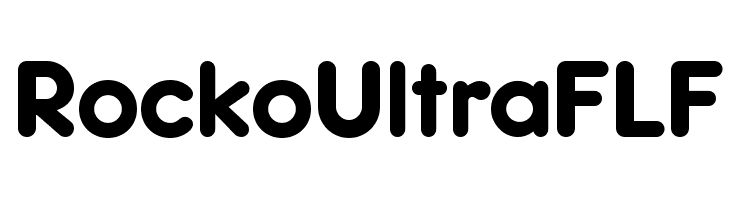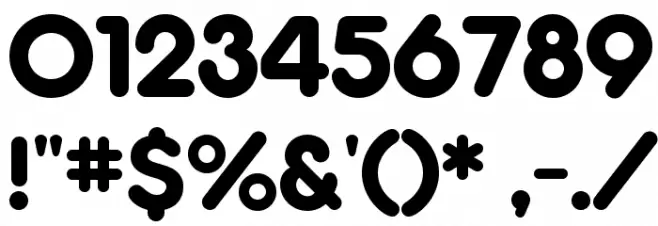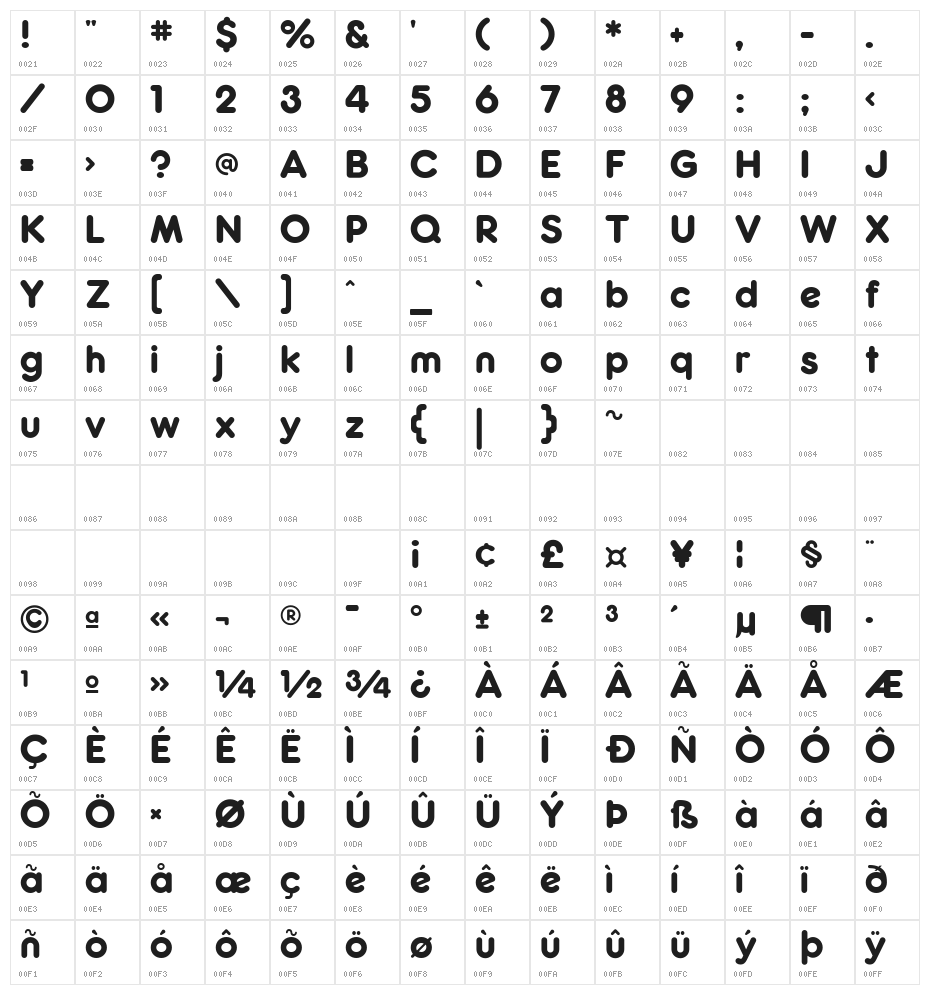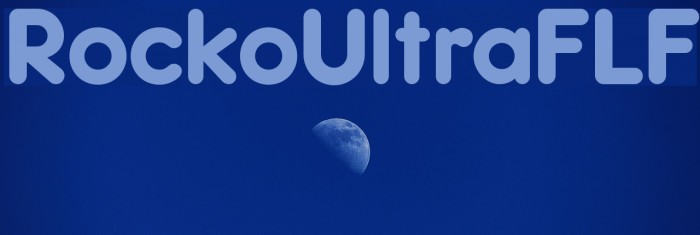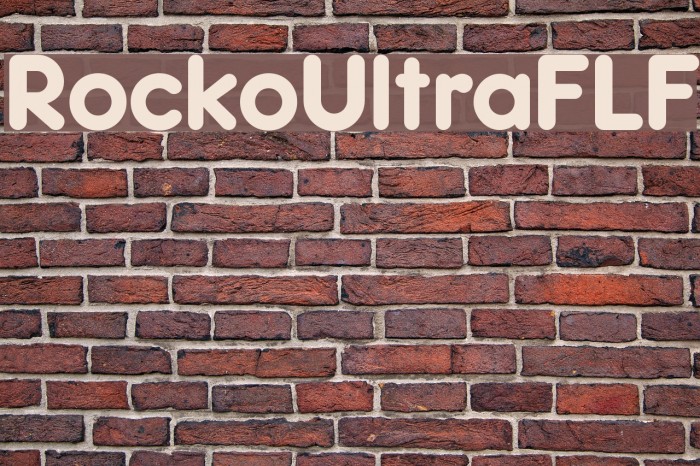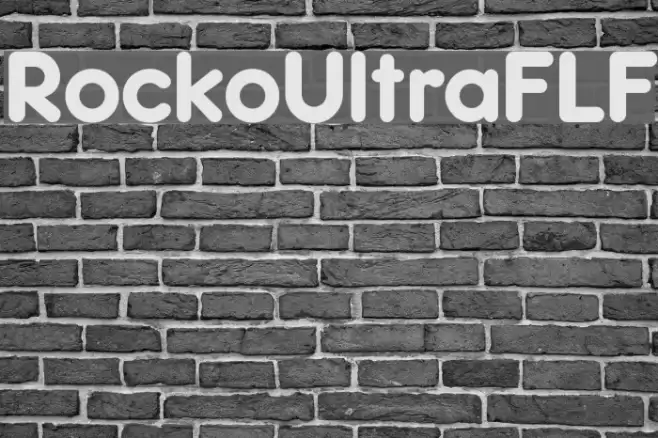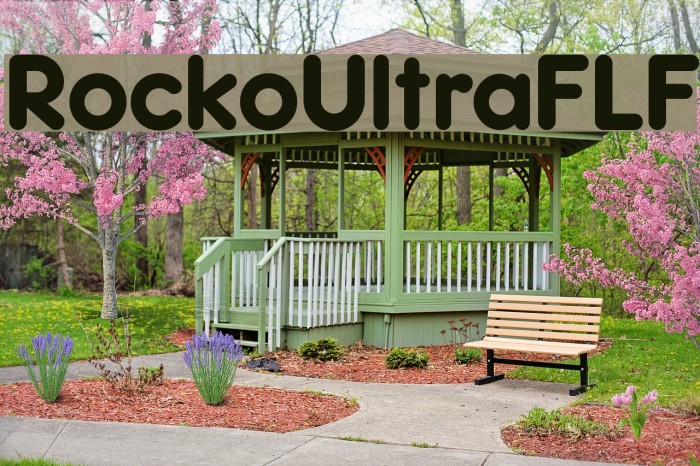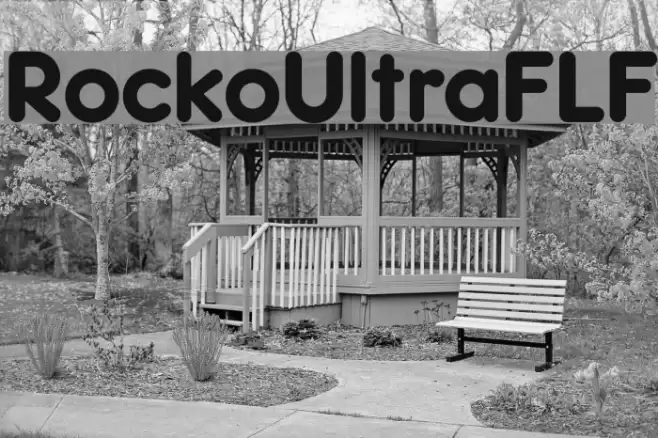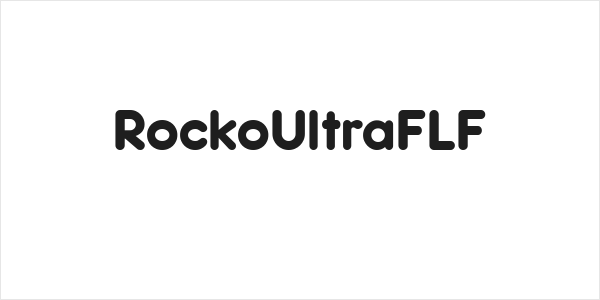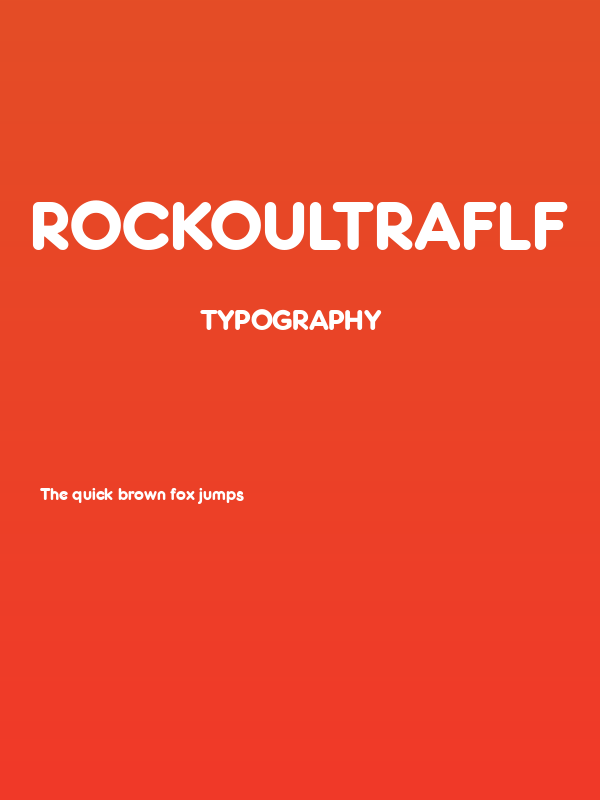
RockoUltraFLF Font
RockoUltraFLF Description
This font features a bold, rounded style with smooth, continuous curves that give it a playful and approachable appearance. The characters are evenly weighted, providing a consistent visual impact across both uppercase and lowercase letters. The numbers and special characters maintain the same rounded aesthetic, ensuring uniformity throughout. Its thick strokes and lack of sharp edges make it highly legible and suitable for various design contexts. The font's modern and friendly vibe makes it ideal for projects that require a touch of warmth and approachability.